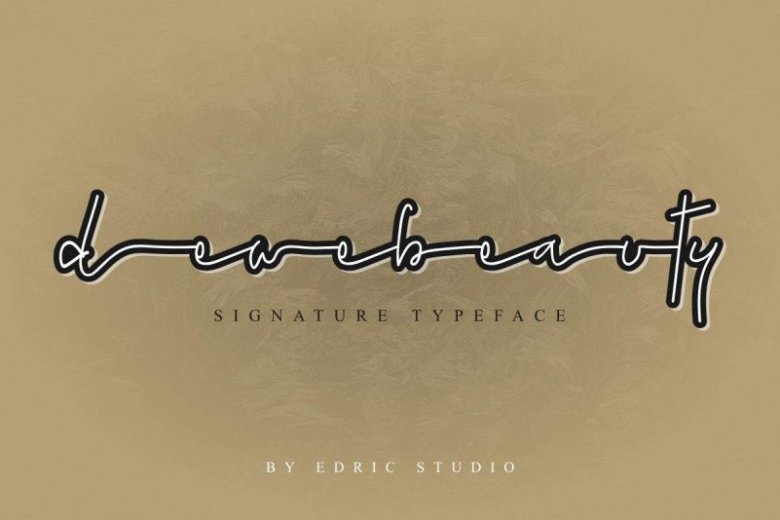
Dewebeauty Signature Font
Introducing the elegant Dewebeauty font! Dewebeauty simplifies elegance into one truly outstanding handwritten font. Use this gorgeous and unique font to bring any DIY project to life!
Dewebeauty is modern feminine font, every single letters have been carefully crafted to make your text looks beautiful. With modern script style this font will perfect for many different project ex: photography, watermark, quotes, blog header, poster, wedding, branding, logo, fashion, apparel, letter, invitation, stationery, etc.